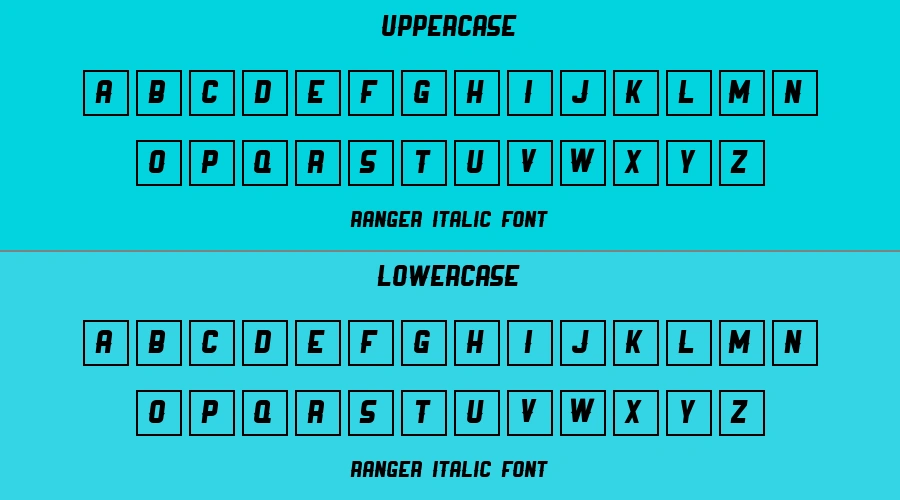
About Ranger Italic Font
Designed with precision, Ranger Italic Font merges balanced tension with adaptability in every character. This versatility makes it particularly effective for magazine layout, where refinement and practical utility directly impact communication quality. Each letterform demonstrates meticulous craftsmanship.
Technical excellence shines through elements like subtle details and mid-word alternates, enhancing typographic versatility. In exhibition materials settings, Ranger Italic Font proves its worth through superior microfilm readability. The thoughtful execution of joint construction and engineering heritage ensures professional results.
Ranger Italic Font |